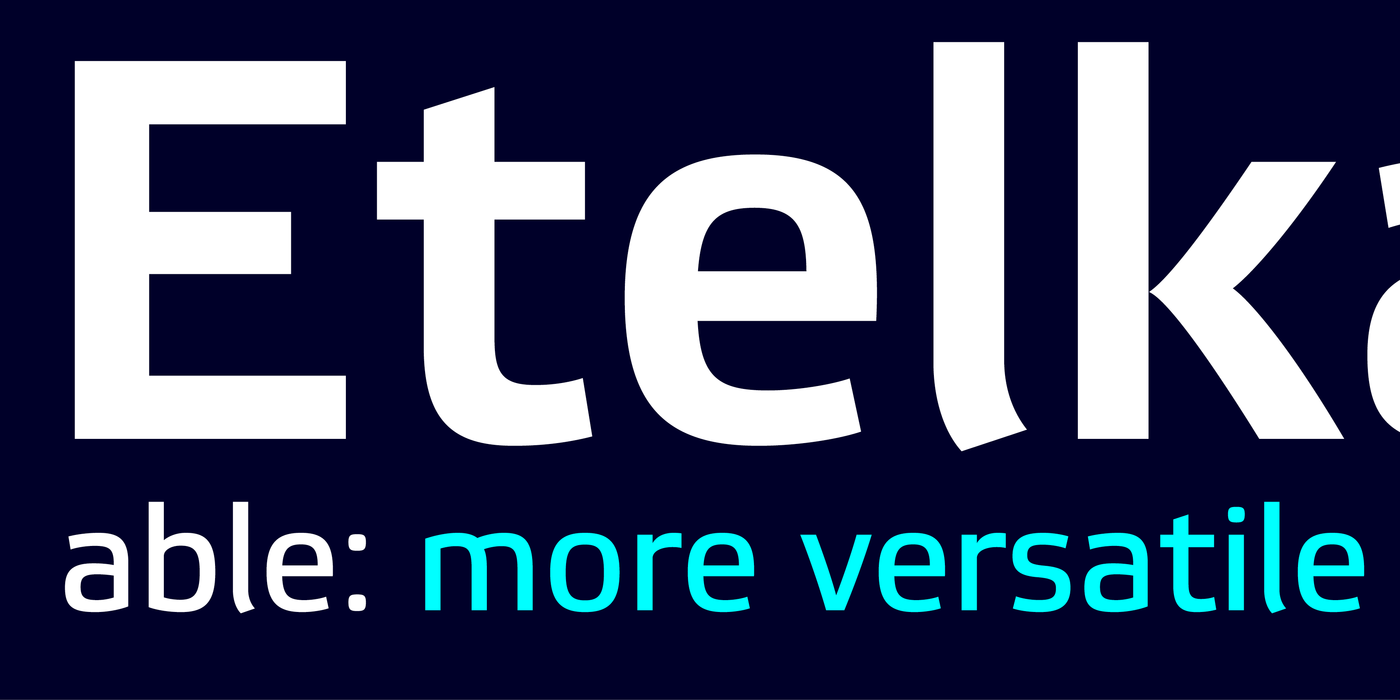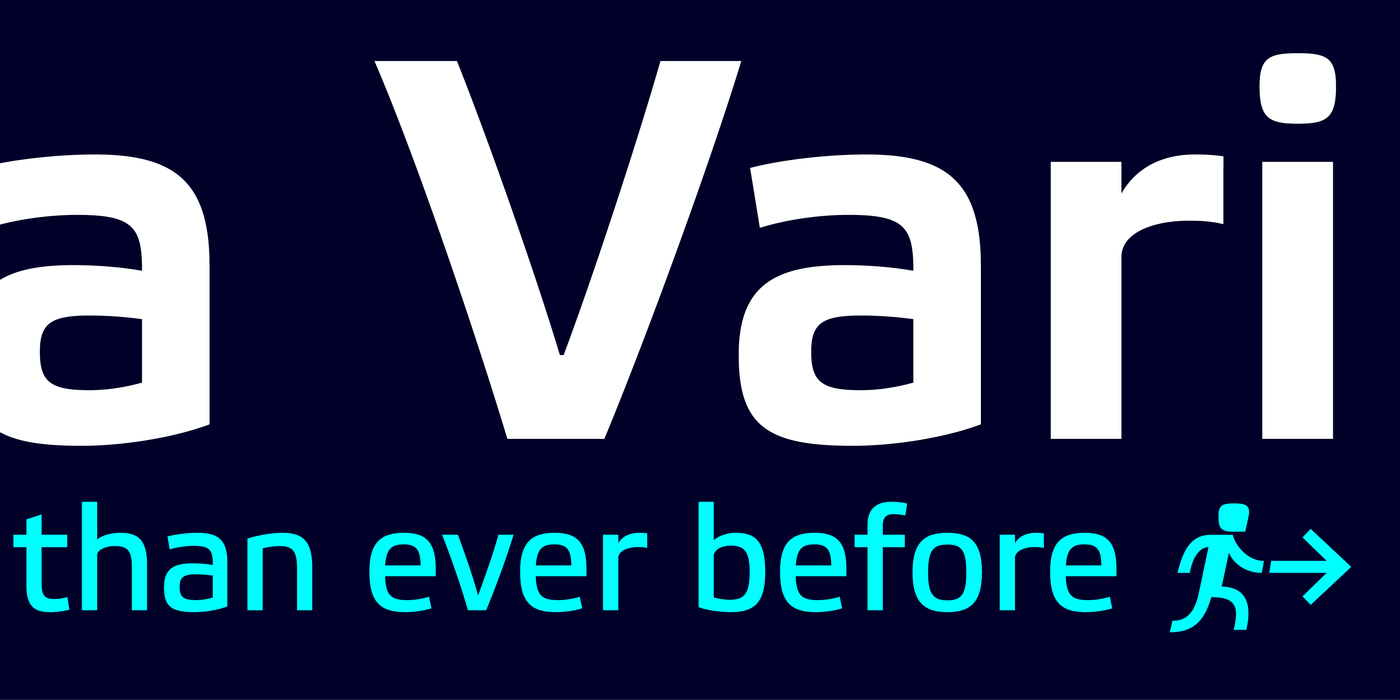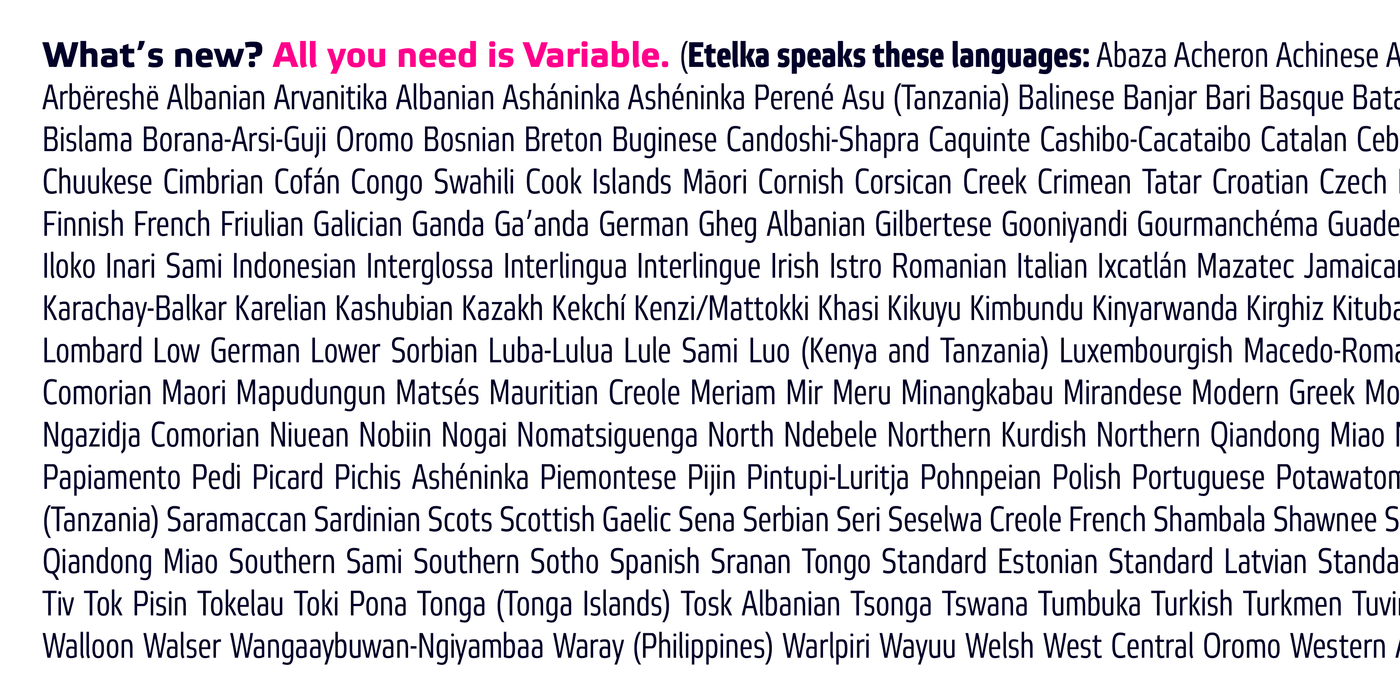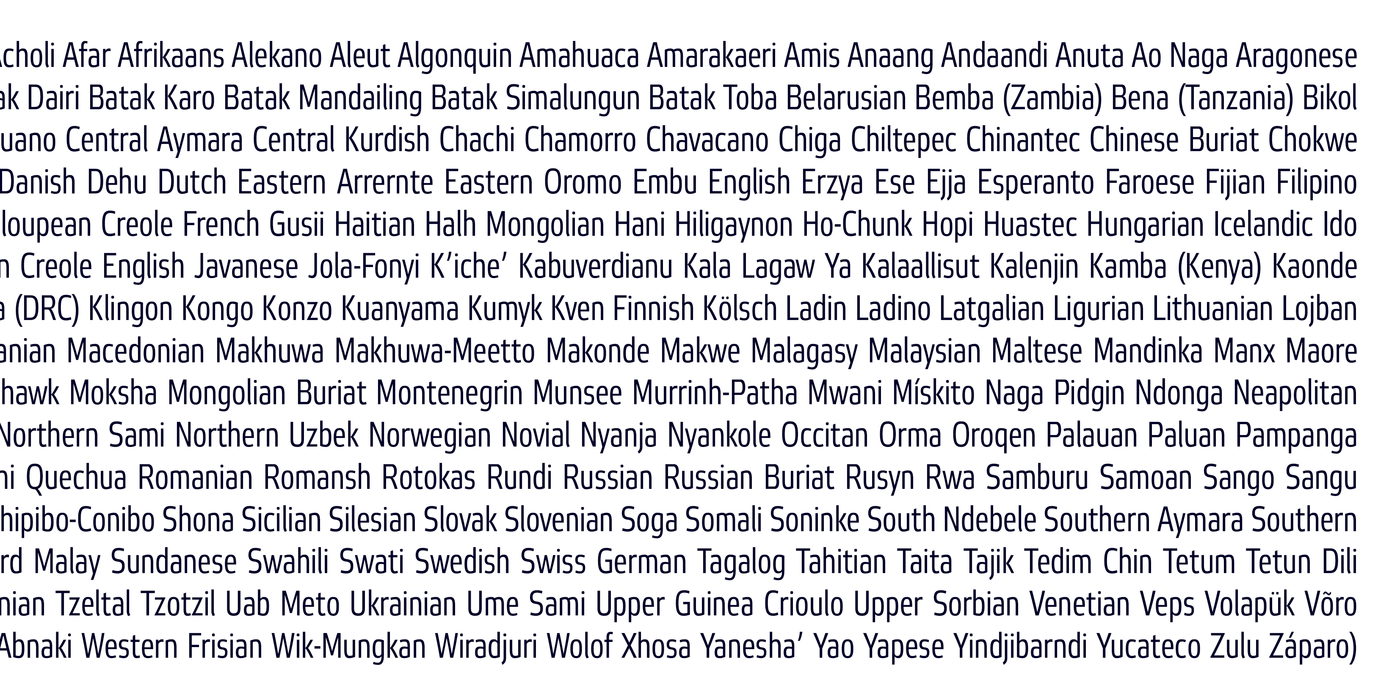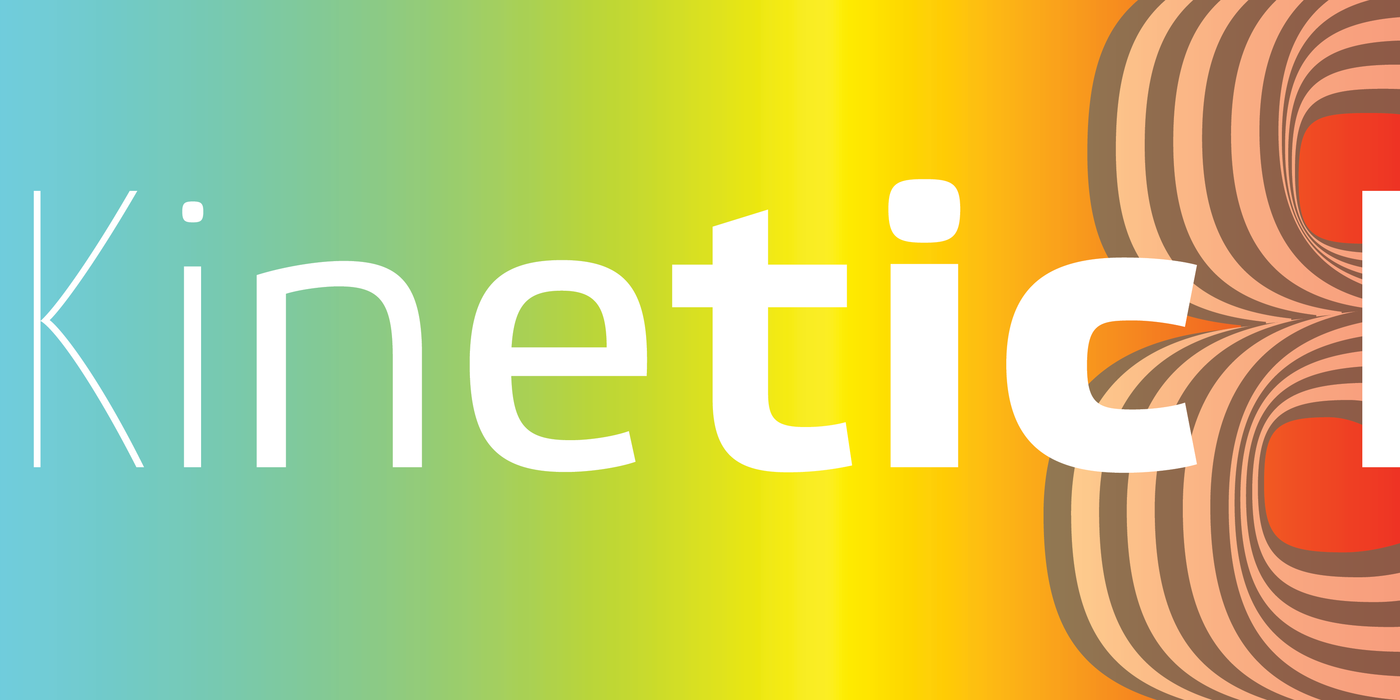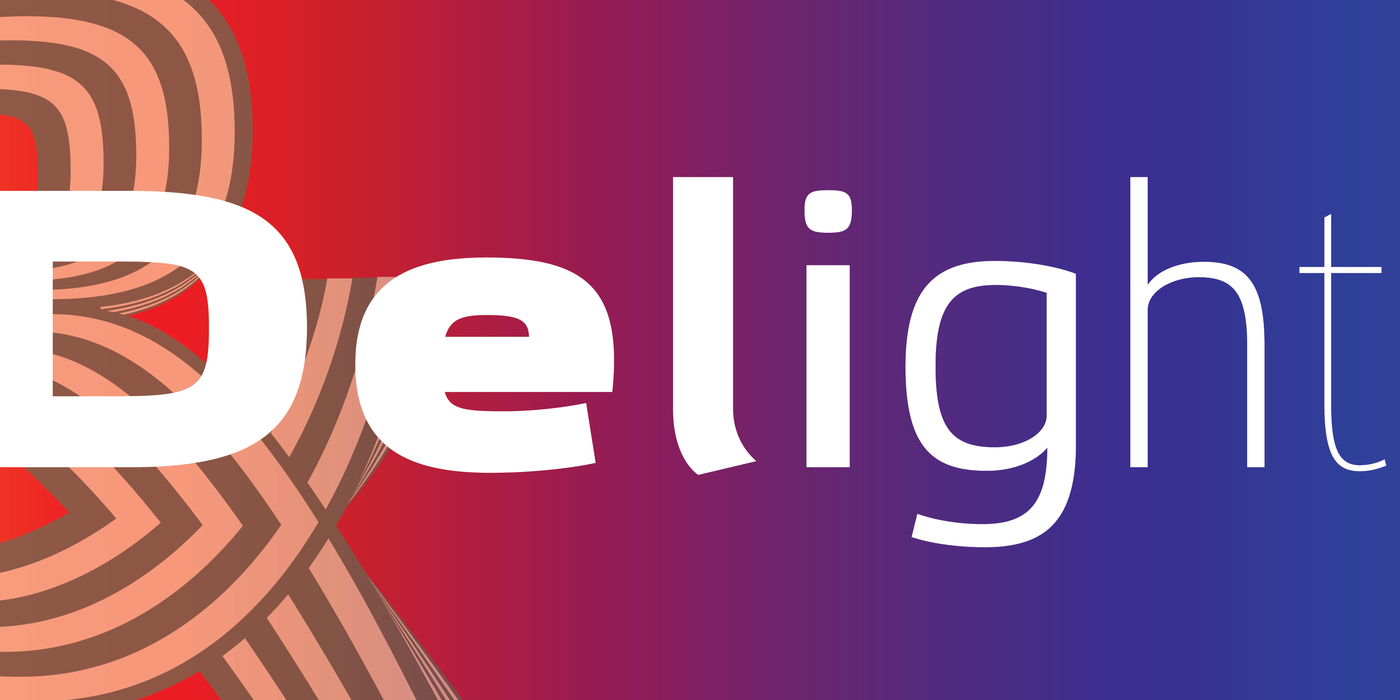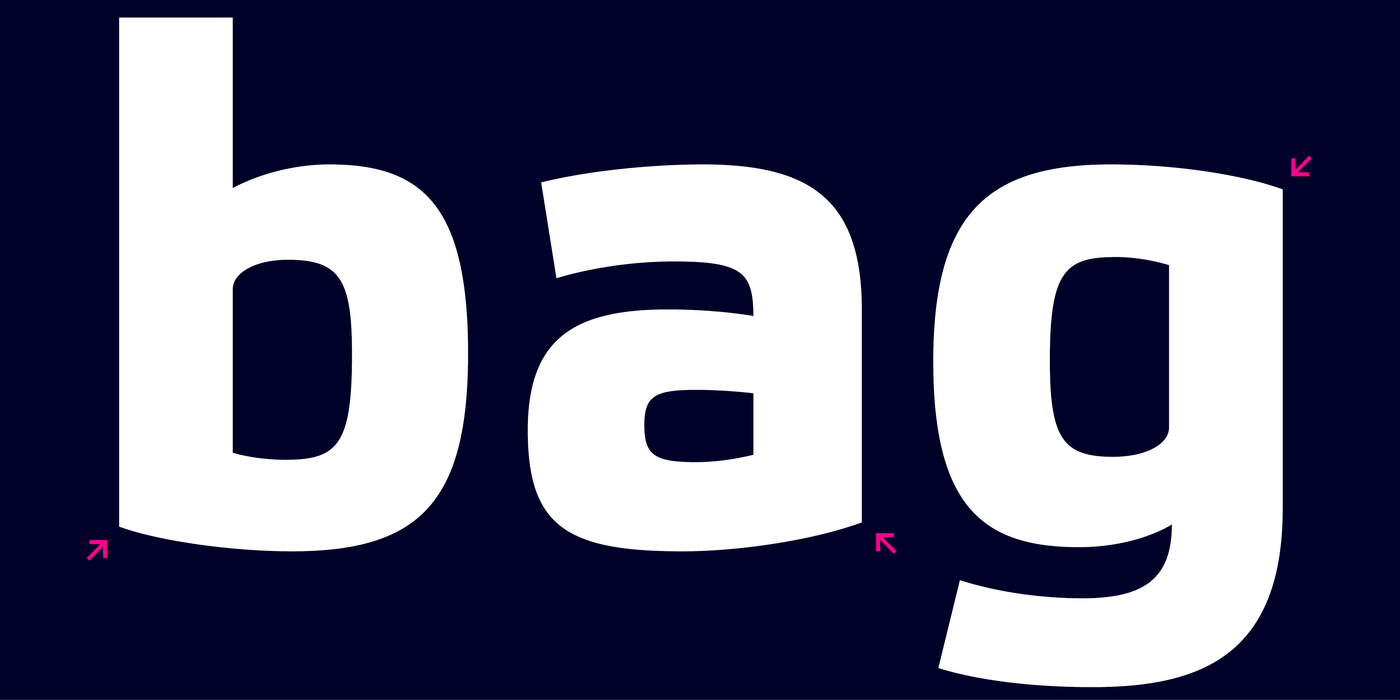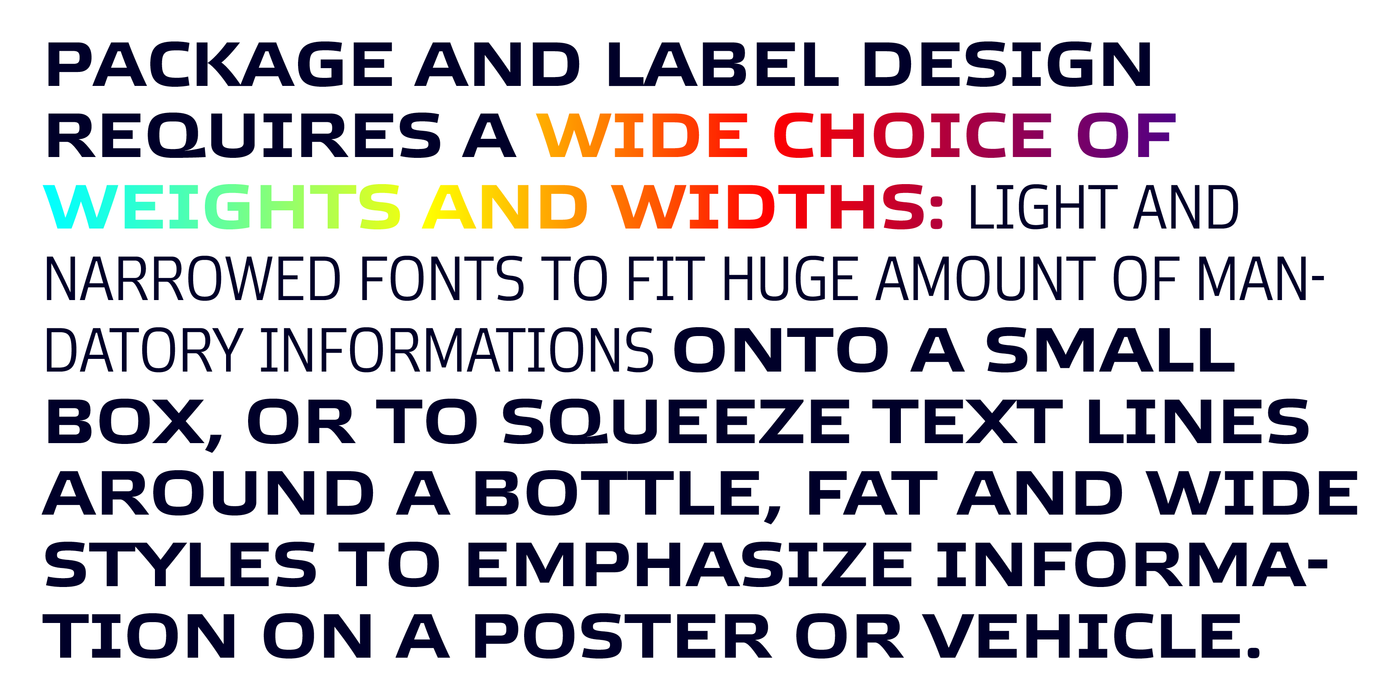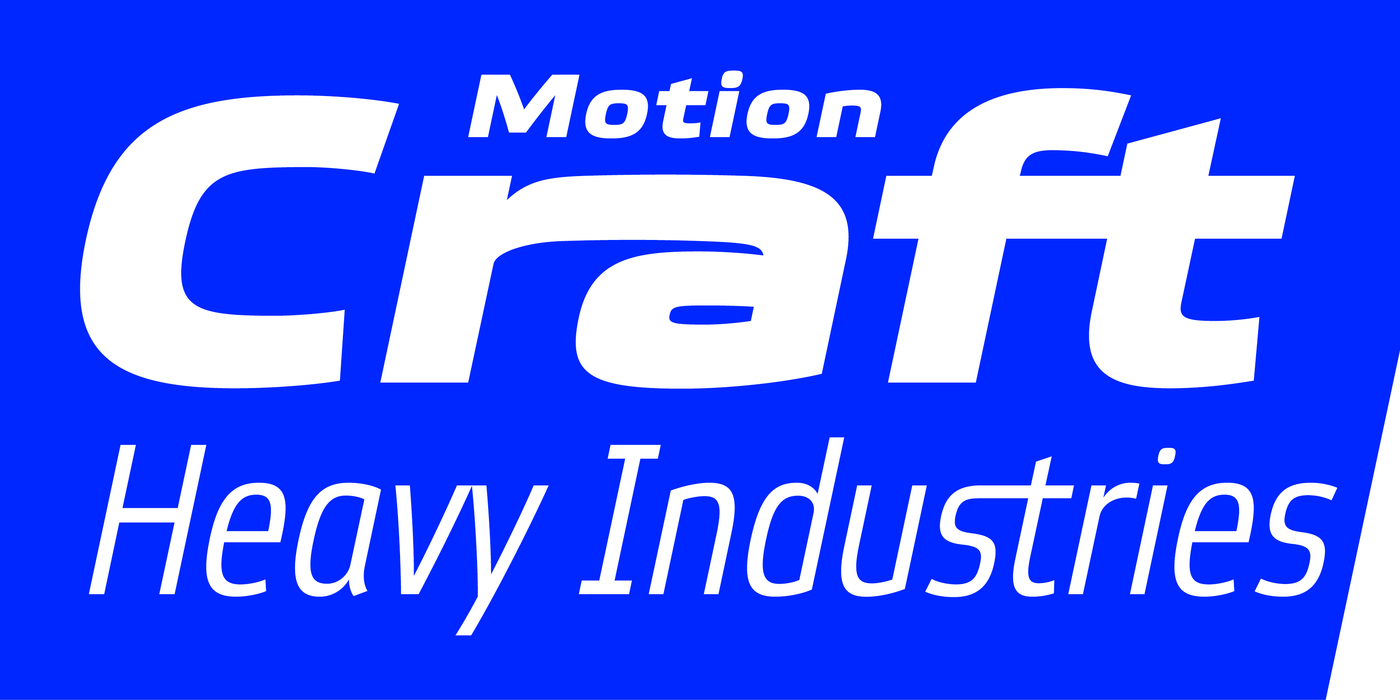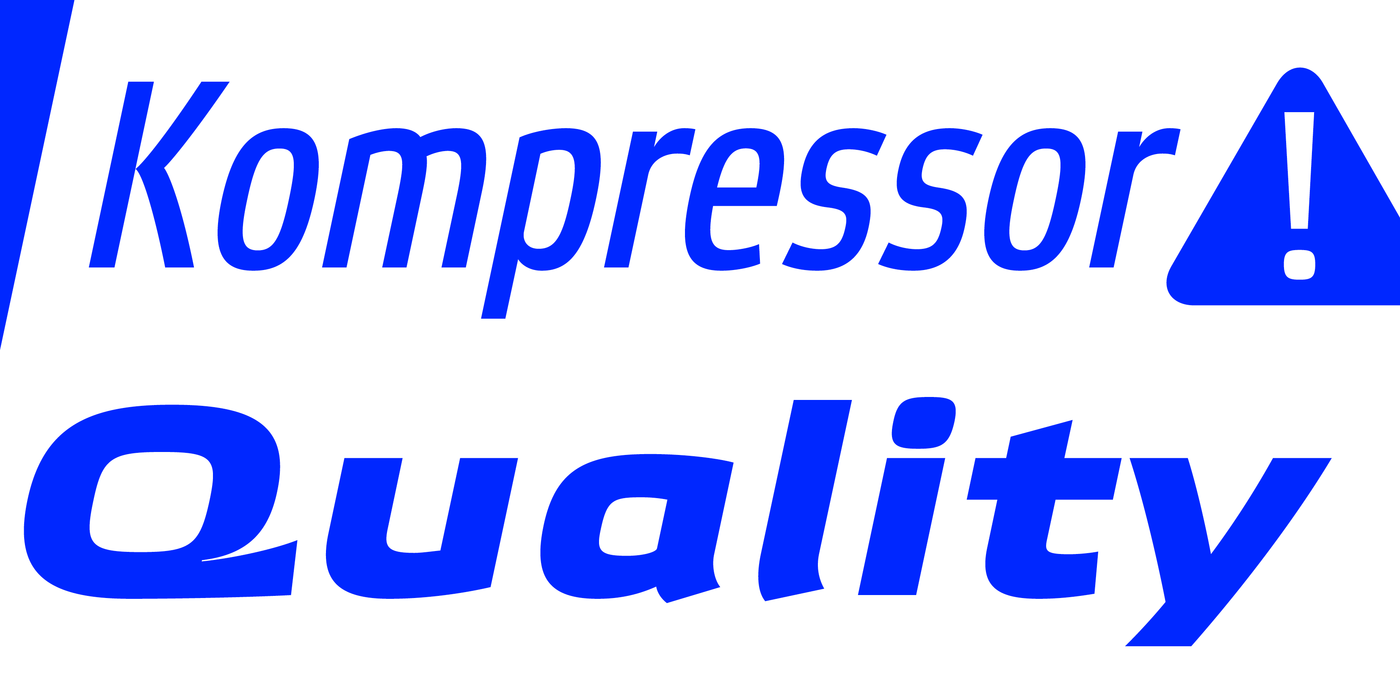
The first drawing of the font, which was later named “Etelka”, was submitted in 2004 for the Czech Television identity competition and was rejected by the jury. We later concluded that the design was worth extending to the current superfamily of 42 fonts. It is a reliable typeface for corporate identities and websites. It works anywhere an extremely legible typeface is needed. Package and label design often requires a wide choice of weights and widths: light and narrowed fonts to fit huge amount of mandatory informations onto a small box, or to squeeze text lines around a bottle, fat and wide styles to emphasize information on a poster or vehicle. The regular styles will serve well for business card, small texts and for your website. Etelka’s design idea is wide, open rounded square. Some details are extremely minimized: lower-case “a, n” or “u” lack their typical spur. The typeface has a distinctive industrial expression with all diagonals slightly softened, and her overall strict mono-linear principle is exceptionally broken only for fine optical adjustments in joints. Cyrillic and Greek scripts are present for international business, as well as rich latin diacritics. Etelka is actually very well suited for all kinds of visual communication, especially orientation systems in modern architecture.
První kresba písma, které bylo později pojmenováno „Etelka“, byla v roce 2004 přihlášena do soutěže na identitu České televize a porota ji odmítla. Poté jsme usoudili, že návrh stojí za rozšíření na současnou superrodinu 42 písem. Je to spolehlivý typ písma pro firemní identity a webové stránky. Funguje všude tam, kde je potřeba extrémně čitelný typ písma. Design obalů a štítků často vyžaduje široký výběr hmotností a šířek: světlá a zúžená písma, aby se do malé krabice vešlo velké množství povinných informací, nebo aby se vmáčkly textové čáry kolem láhve, tlusté a široké styly pro zdůraznění informací na plakátu nebo vozidlo. Běžné styly dobře poslouží pro vizitky, drobné texty i pro váš web. Etelčin designový nápad je široký, otevřený zaoblený čtverec. Některé detaily jsou extrémně minimalizovány: malá písmena „a, n“ nebo „u“ postrádají svou typickou ostruhu. Písmo má výrazný industriální výraz se všemi úhlopříčkami mírně změkčenými a její celkový přísný monolineární princip je výjimečně porušen pouze pro jemné optické úpravy ve spojích. Pro mezinárodní obchod jsou k dispozici cyrilice a řecké písmo, stejně jako bohatá latinská diakritika. Etelka se vlastně velmi dobře hodí pro všechny druhy vizuální komunikace, zejména orientační systémy v moderní architektuře.